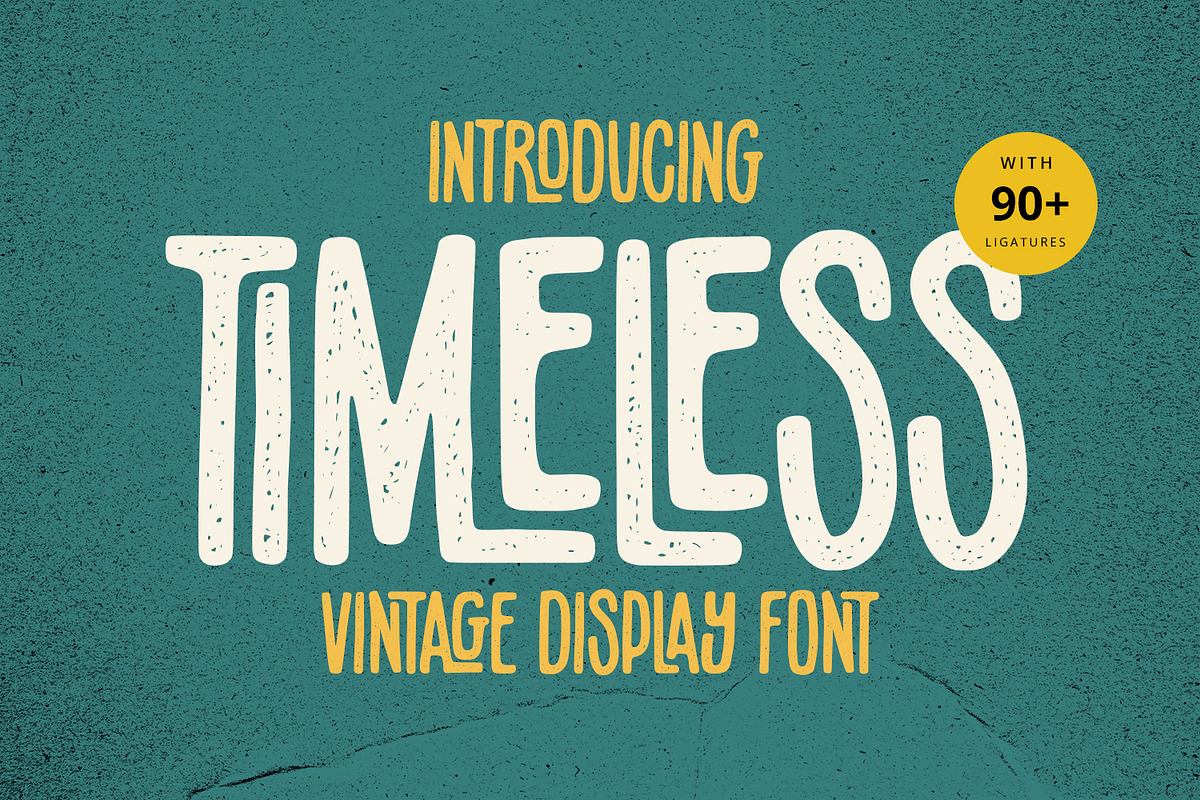
Timeless is a rustic vintage font designed to evoke an authentic and classic feel in various design projects. Its handcrafted aesthetic makes it particularly suitable for applications such as branding, logo design, lettering, clothing, posters, magazines, packaging, shopping bags, t-shirts, book covers, photography, and special events.
Design Style: Rustic vintage with a handcrafted appearance.
Character Set: Includes uppercase and lowercase letters, numerals, punctuation, and supports multilingual characters.
Incorporating the Timeless font into your design projects can add a classic and authentic touch, enhancing their visual appeal with a vintage aesthetic